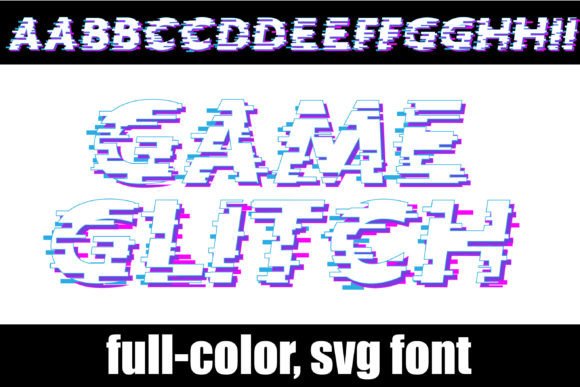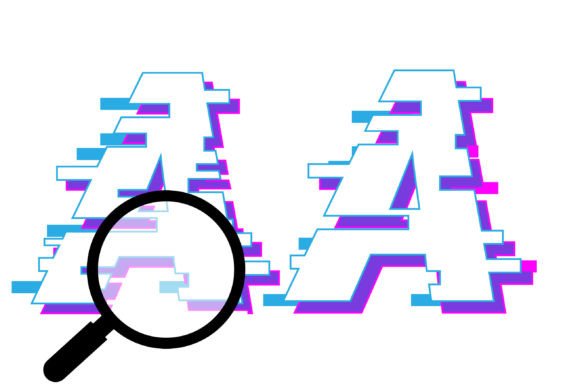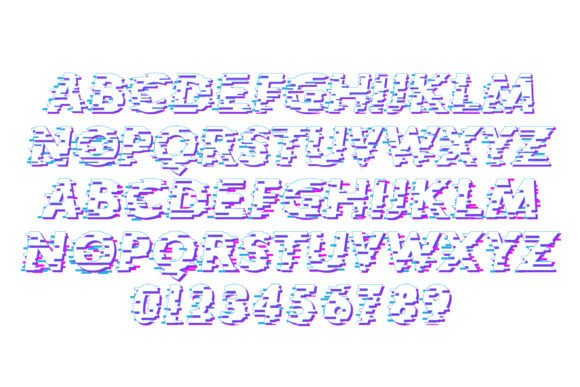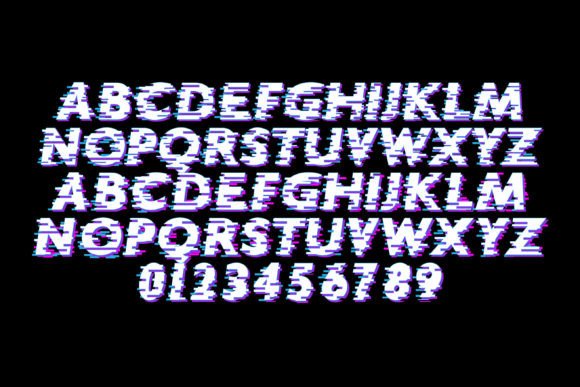
Game Glitch Font
About the Game Glitch Font
Add a touch of class to your work with the Game Glitch Font, a truly exceptional typeface. This full-color font features a fun pixelated font that is reminiscent of video games. This font works best for titles, displays, posters and more. Please note color fonts will show as black in non compatible programs. This font type is compatible with Silhouette Studio.